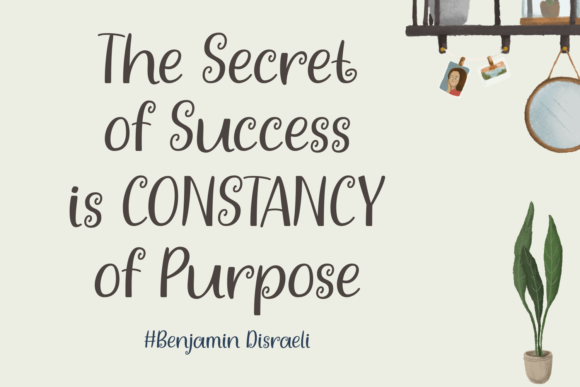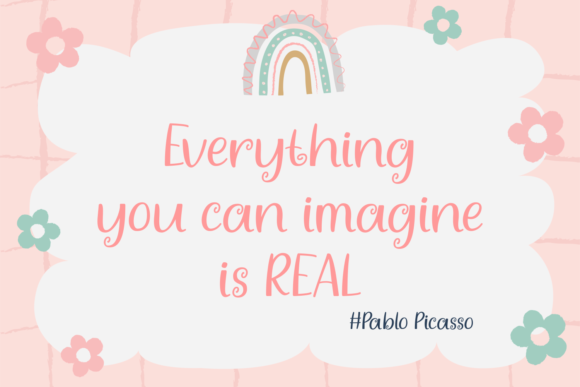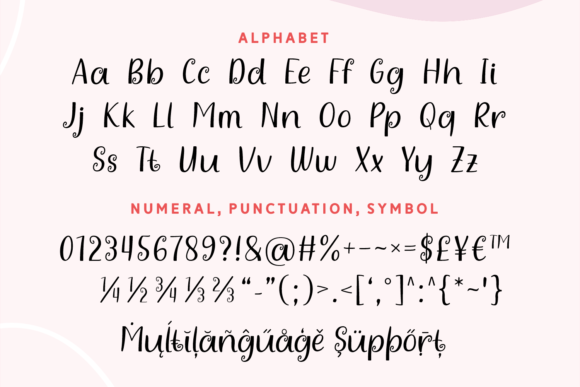
Funny and Cutes Font
Funny And Cutes is a lovely handwritten font featuring playful swirls. No matter the creation, Funny and Cutes can add a heartwarming feeling to your project.